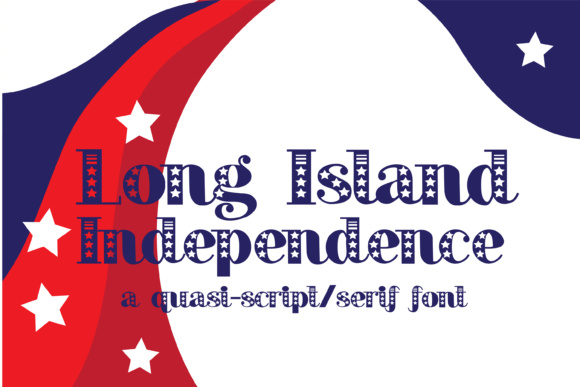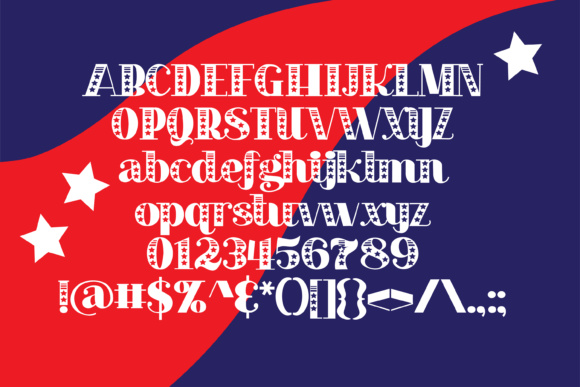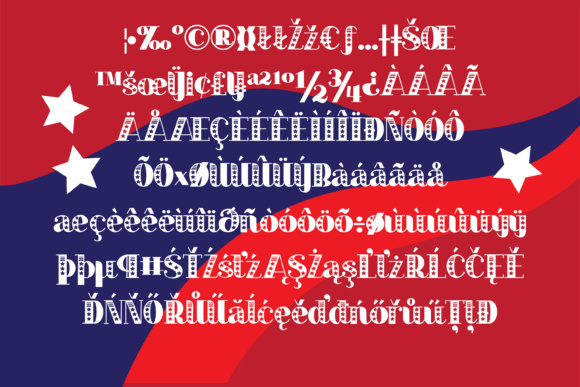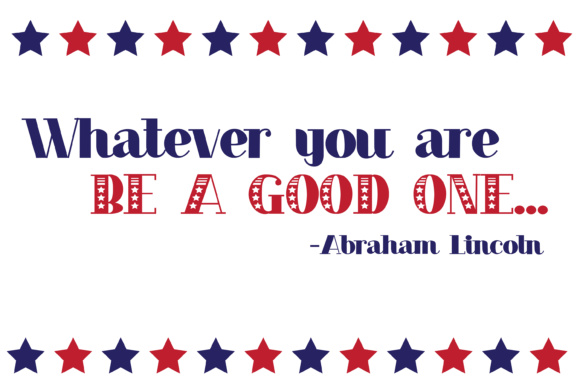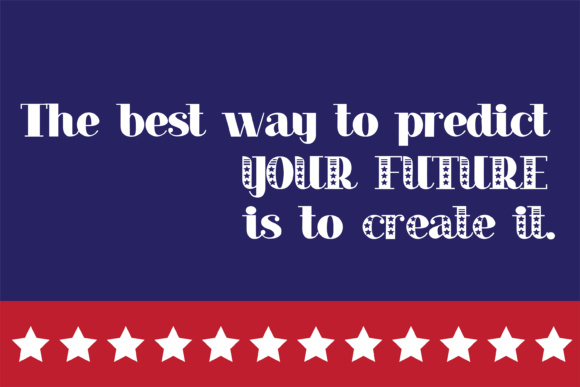
Long Island Independence Font
Long Island Independence is a quasi-script serif font sporting stars and stripes, just in time for the 4th of July! This patriotic handwritten script looks great in a wide range of works.